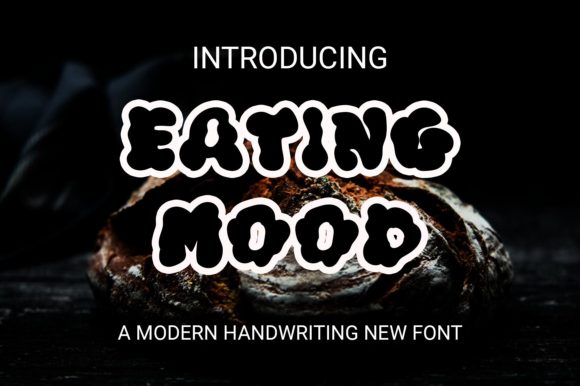
Get ready to savor the deliciousness of Eating Mood Font, a delectable font that will tantalize your creative taste buds. This enchanting script font is the perfect choice for those who crave a touch of nostalgia and handwritten charm.
Step into a world of warmth and familiarity with Eating Mood Font. Its playful and casual demeanor will instantly evoke memories of childhood scribbles and cozy handwritten notes. Let your imagination run wild as you craft logos that whisper of tradition, add a touch of whimsy to your headings, or create stunning t-shirts that express your unique style.
With Eating Mood Font, you'll have a font that's not just visually appealing, but also incredibly versatile. Its charming curves and playful strokes will elevate your designs to new heights, making them stand out from the crowd. Picture invitations that invite guests to a world of wonder, signage that draws attention with its irresistible charm, or labels that add a touch of personality to your products.
But don't just take our word for it. Let your creativity soar with Eating Mood Font, and witness how it transforms your designs into captivating masterpieces. Its ability to capture the essence of handwritten letters will add a touch of authenticity to your projects, making them resonate with your audience on a deeper level.